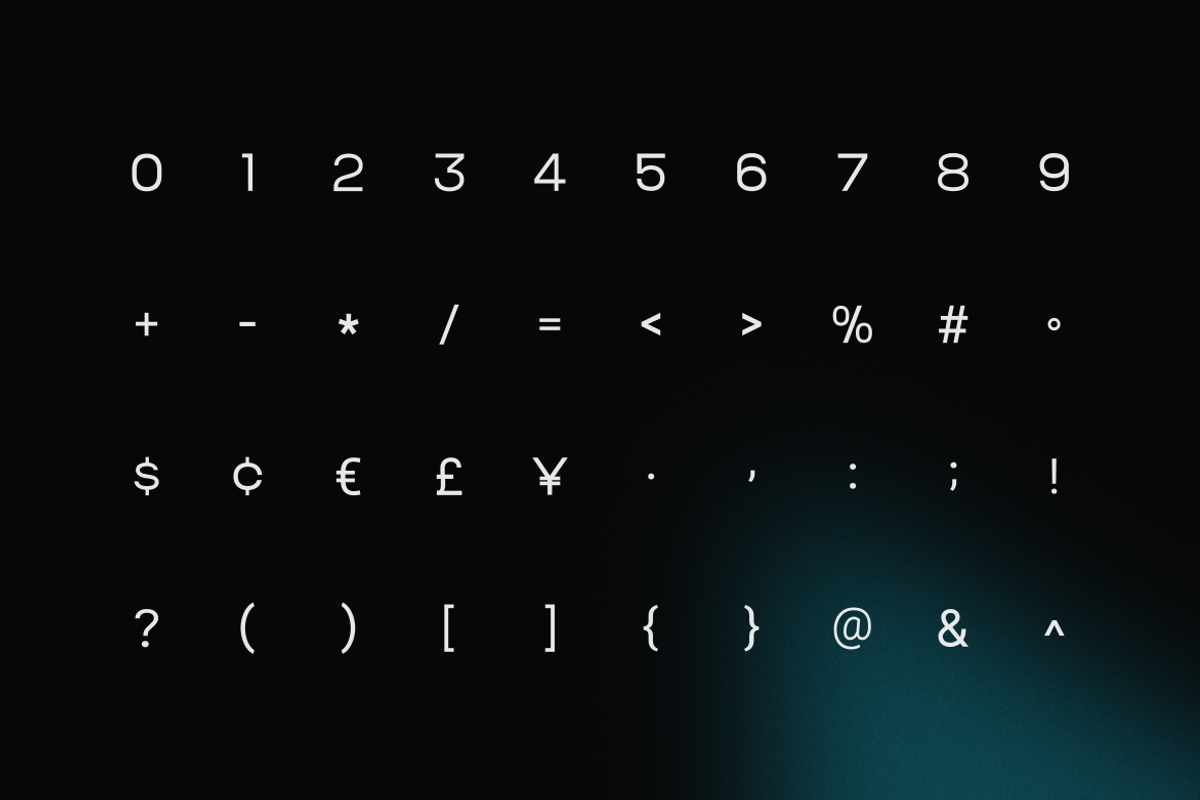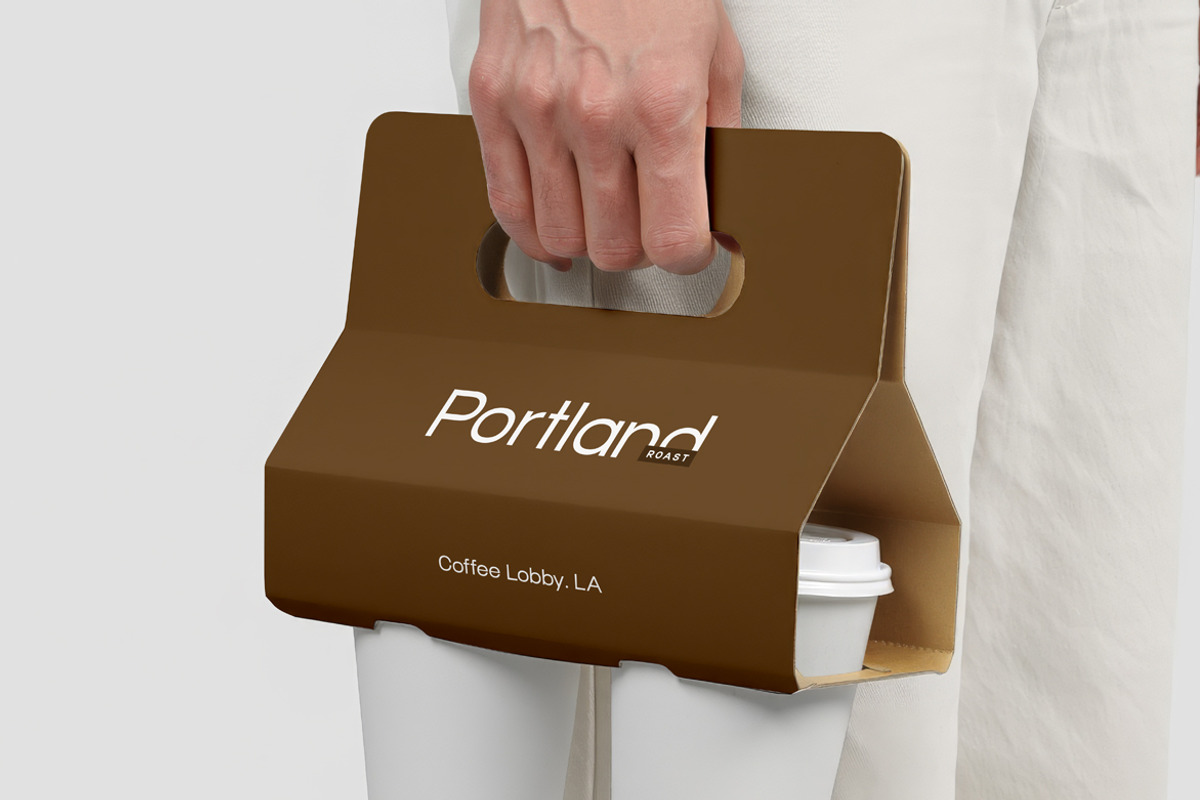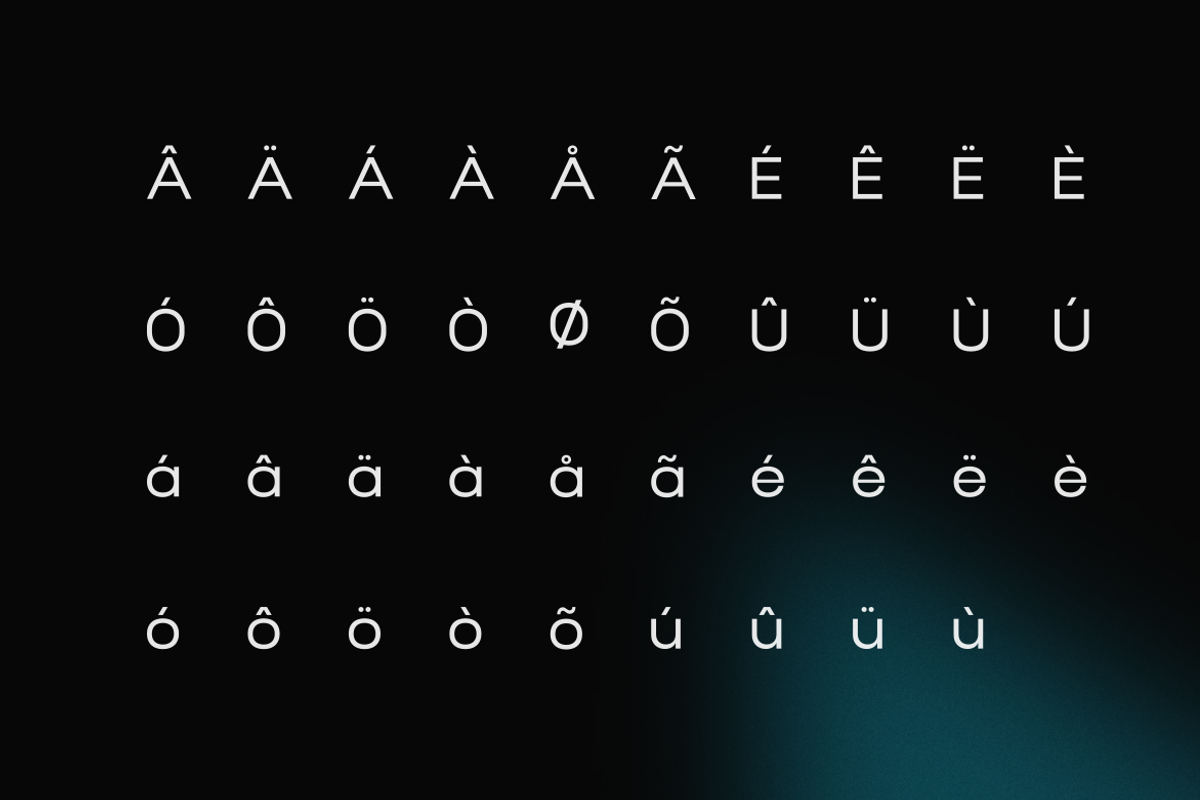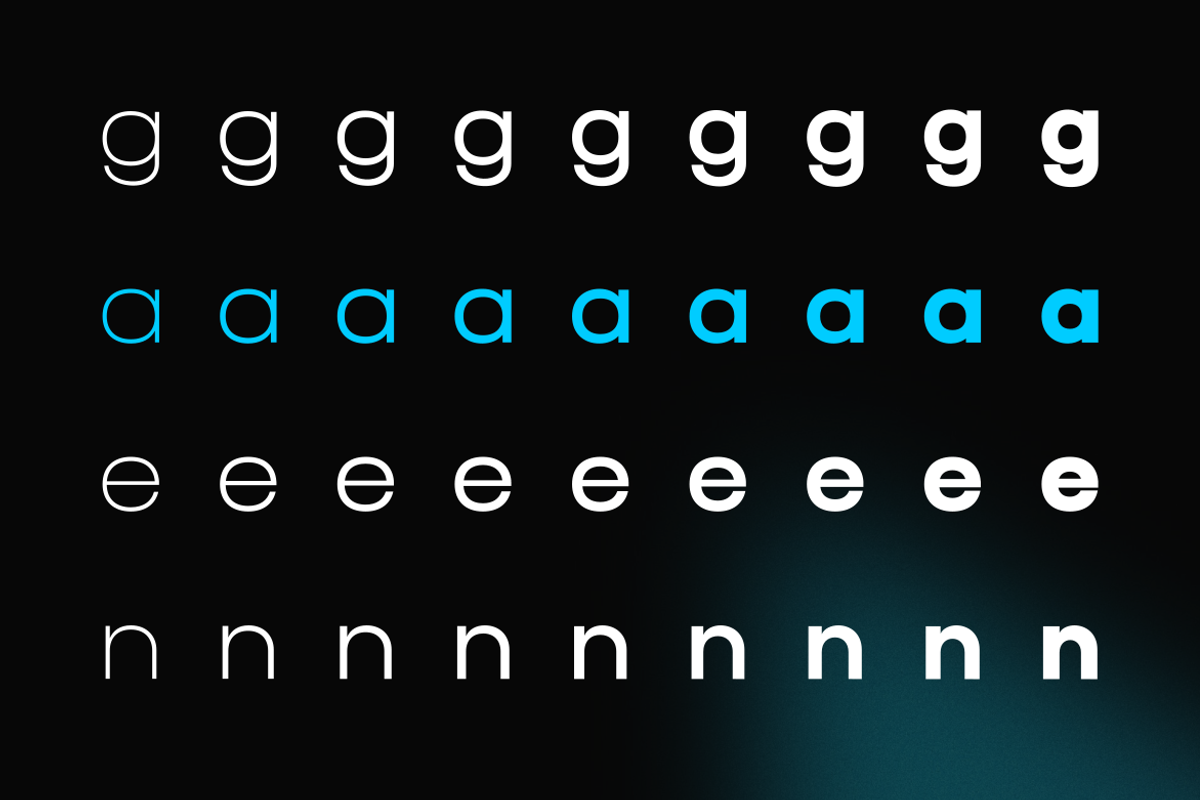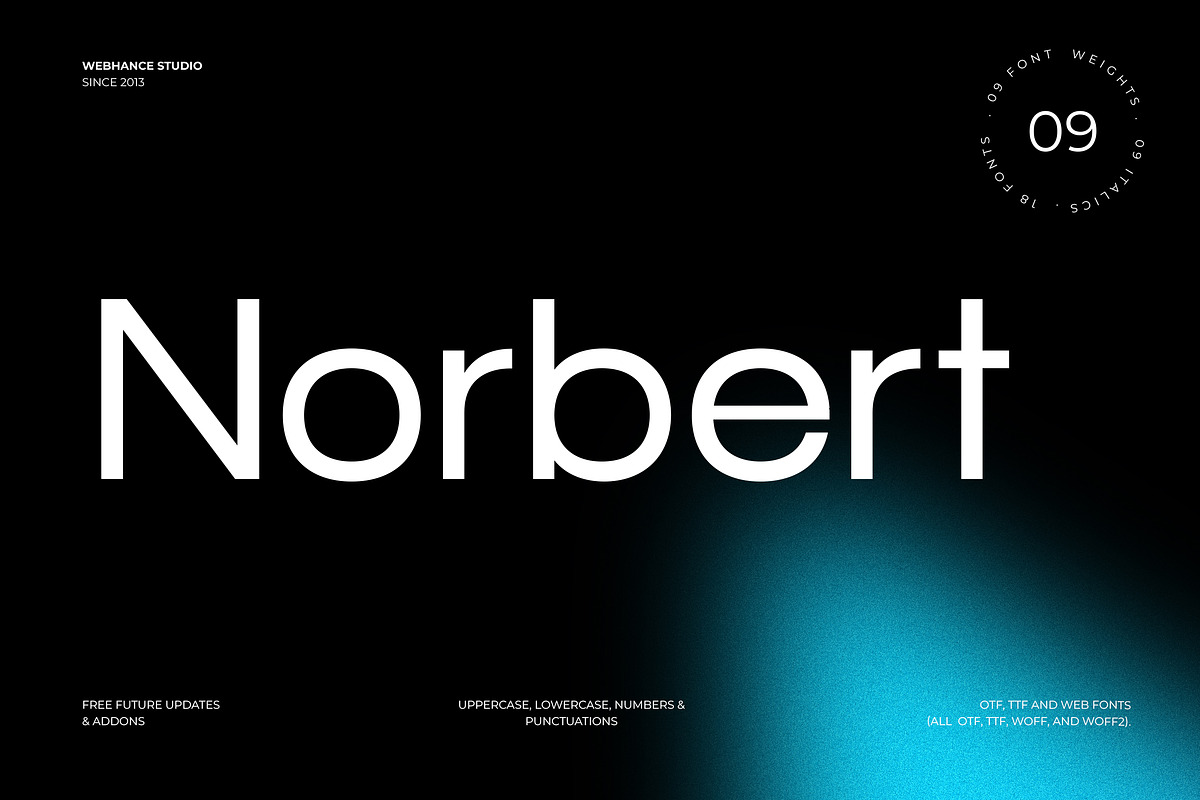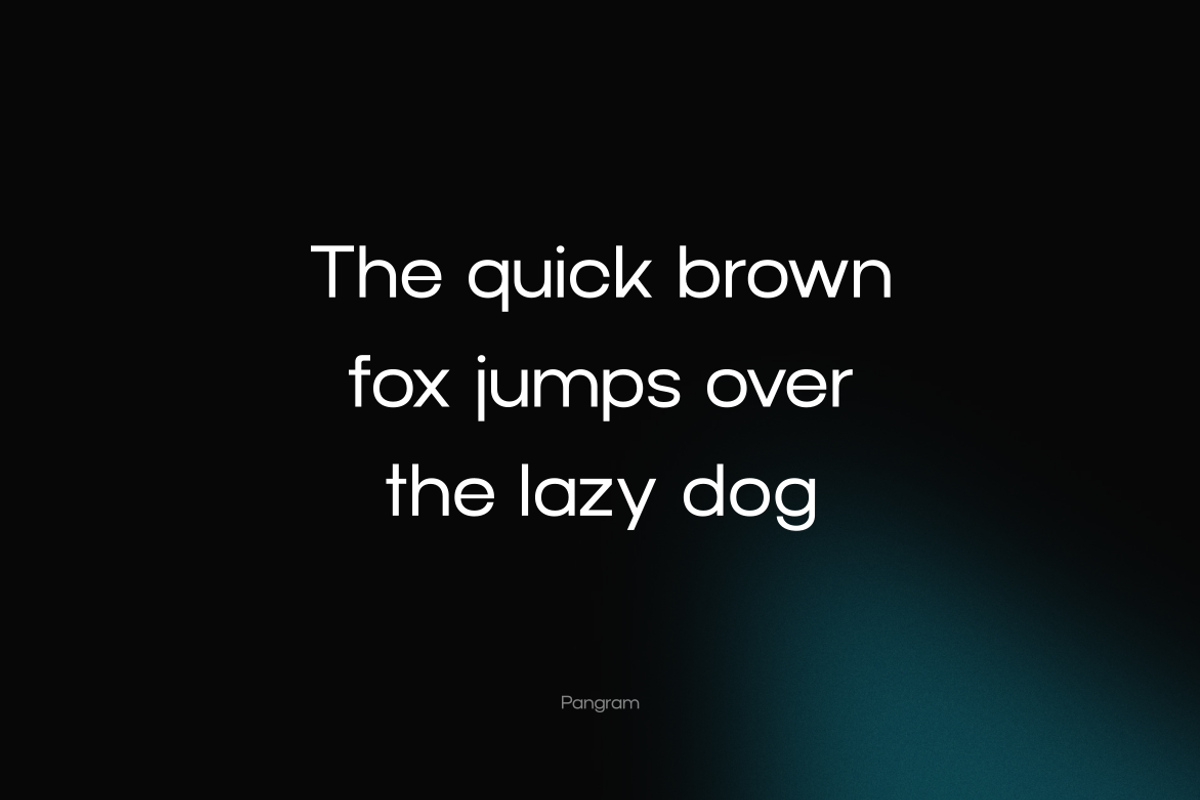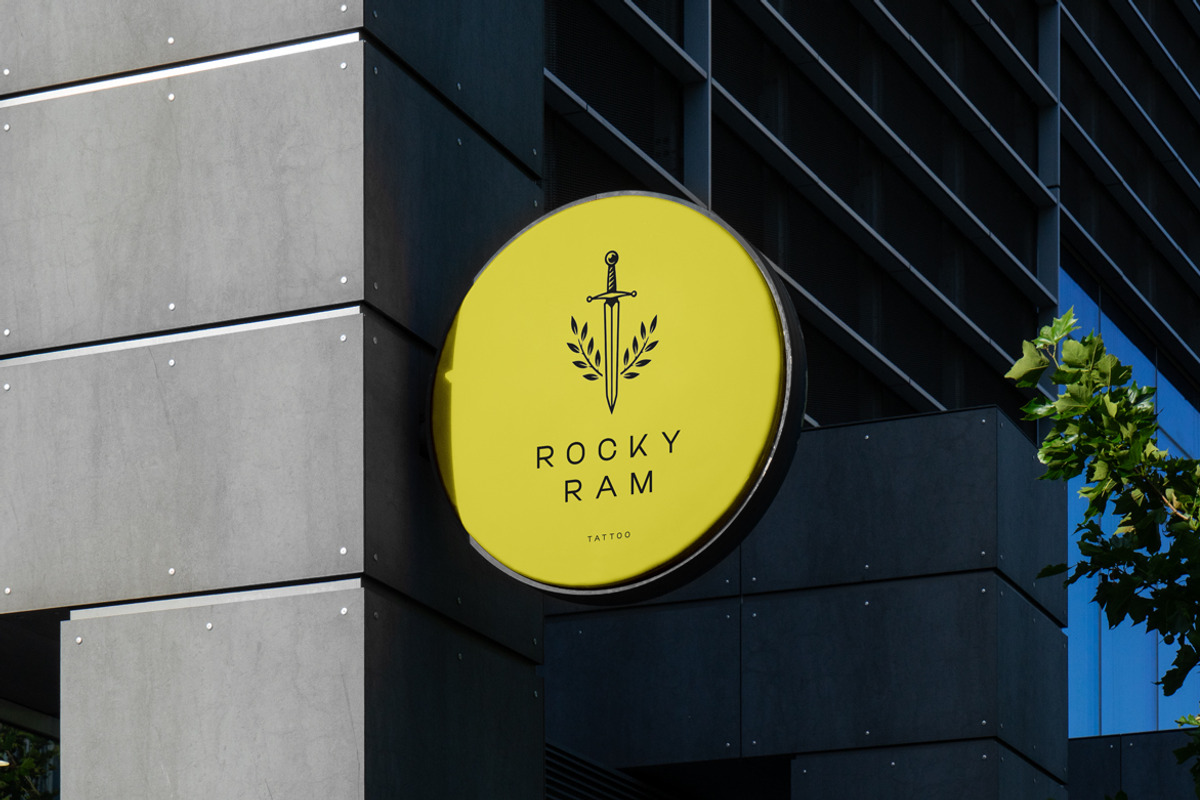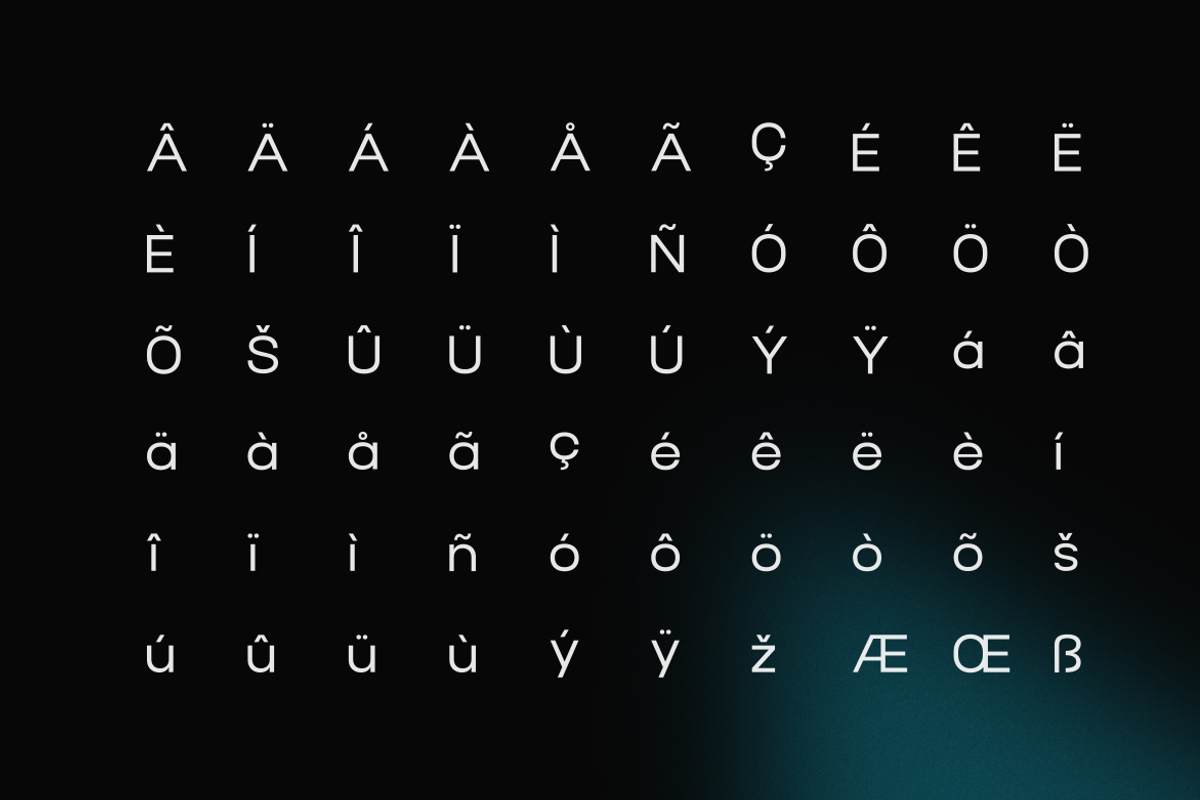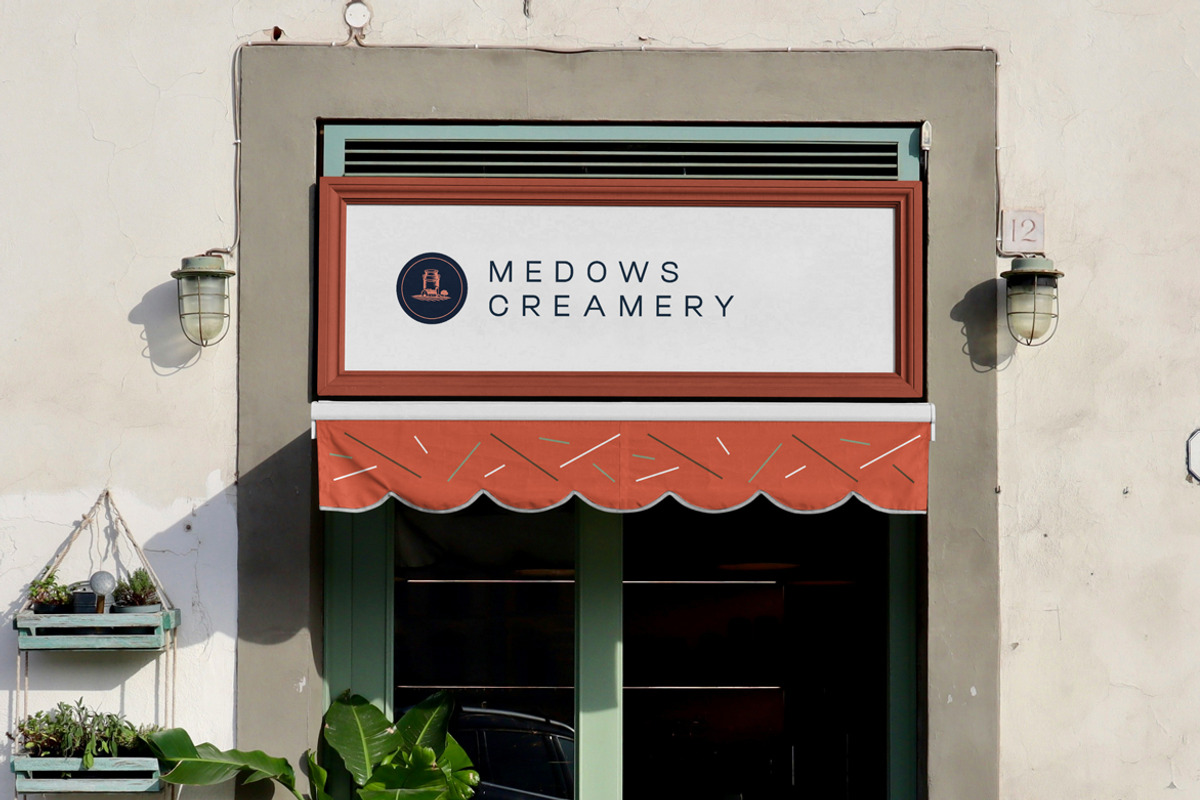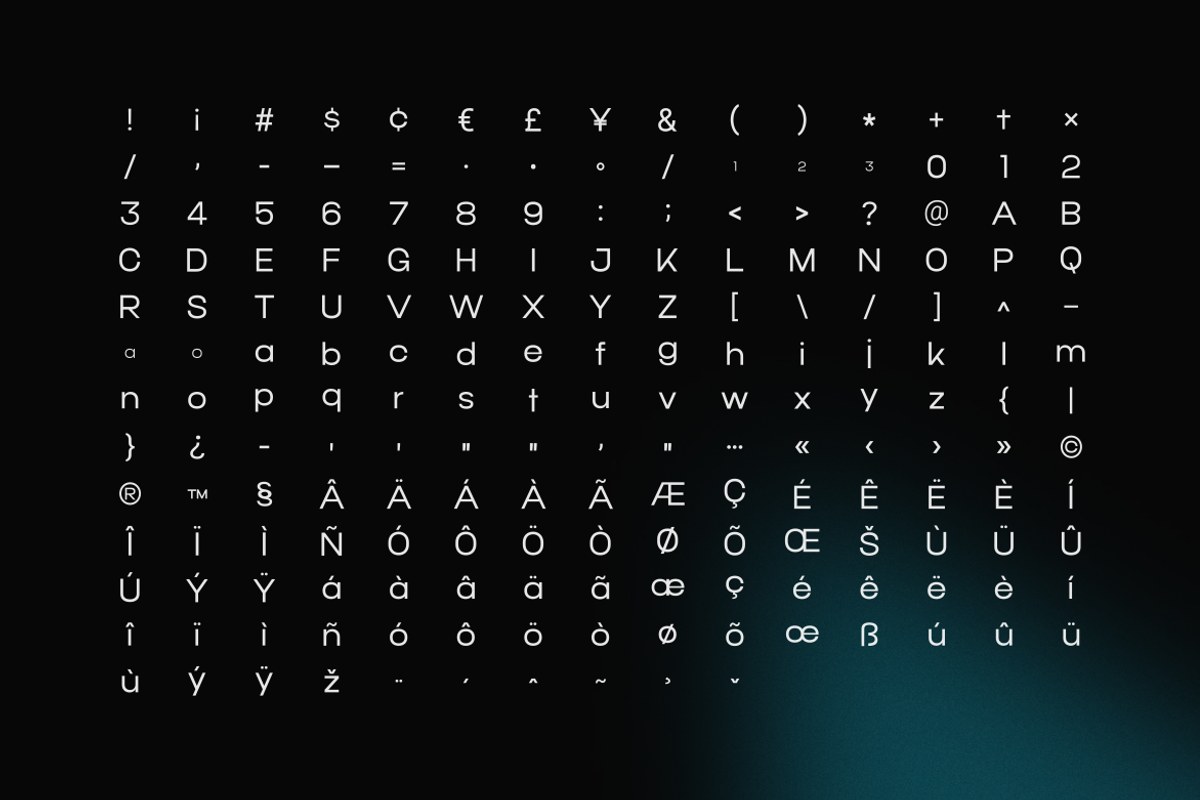
Norbert - Modern Sans-serif
Norbert - Modern Sans-serif Font Family
Norbert is a modern sans-serif font family designed for clarity, confidence, and flexible everyday use. Its clean letterforms, balanced proportions, and strong visual presence make it suitable for branding, interfaces, editorial layouts, and digital products.
Built with readability in mind, Norbert performs well across different sizes and design contexts. It works especially well for websites, UI systems, posters, headlines, dashboards, and brand identities where structure and modern simplicity are important.
The typeface includes uppercase, lowercase, numbers, punctuation, and essential multilingual characters, making it practical for professional design use across a wide range of projects.
The family features 9 weights, giving designers the flexibility to create clear hierarchy, strong headlines, readable body text, and refined typographic systems. Whether used for modern brands, digital interfaces, or visual communication, Norbert offers a clean and dependable sans-serif foundation.
* Multilingual Font
* Uppercase letters
* Lowercase letters
* 09 Weights
* 09 Italics
* 18 Fonts Included
* 200+ Glyphs
* Numbers
* Punctuations